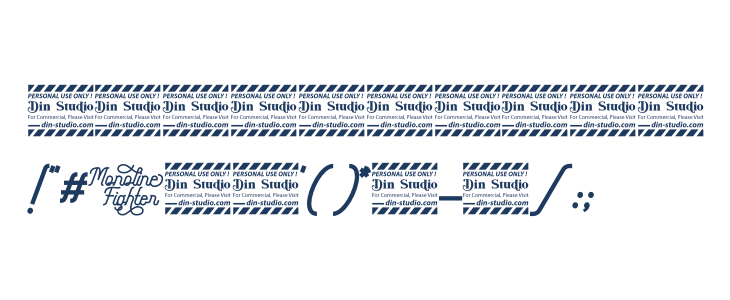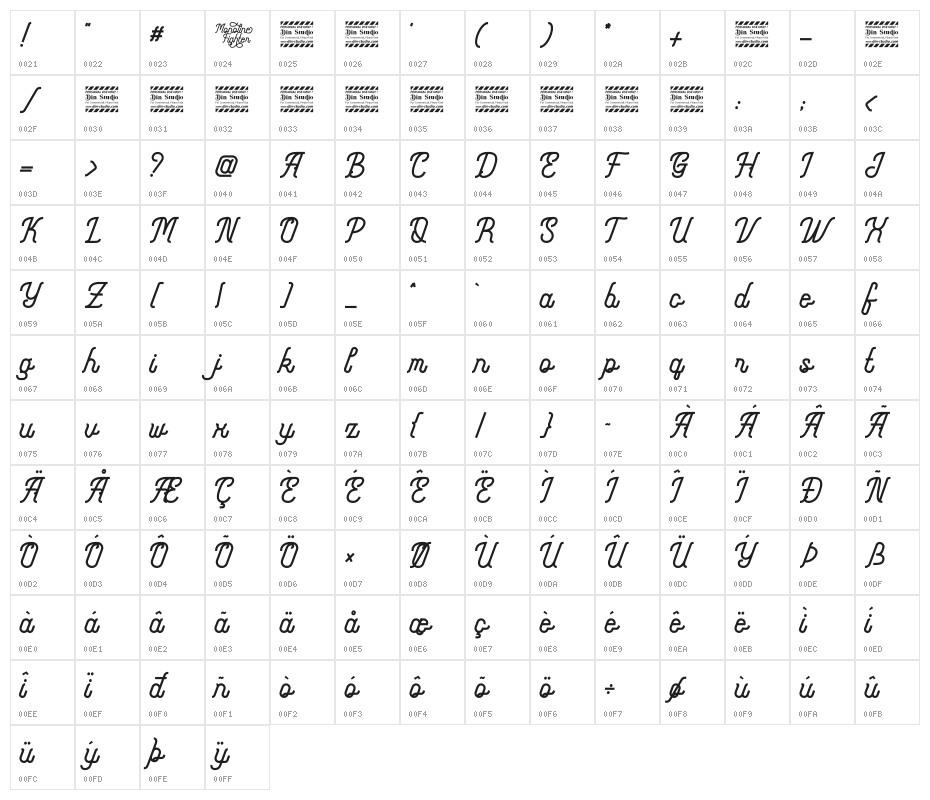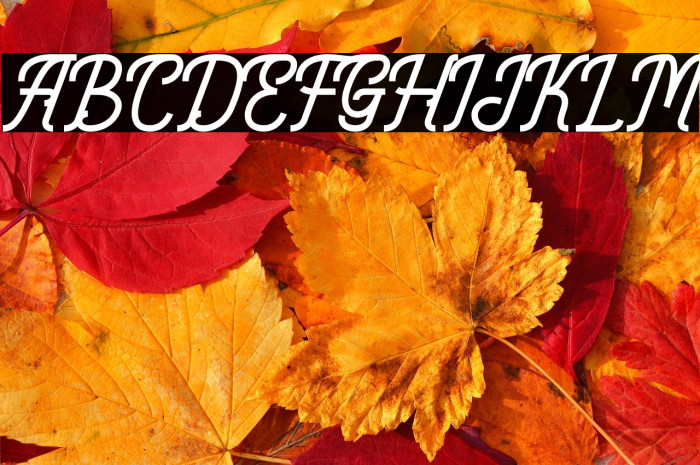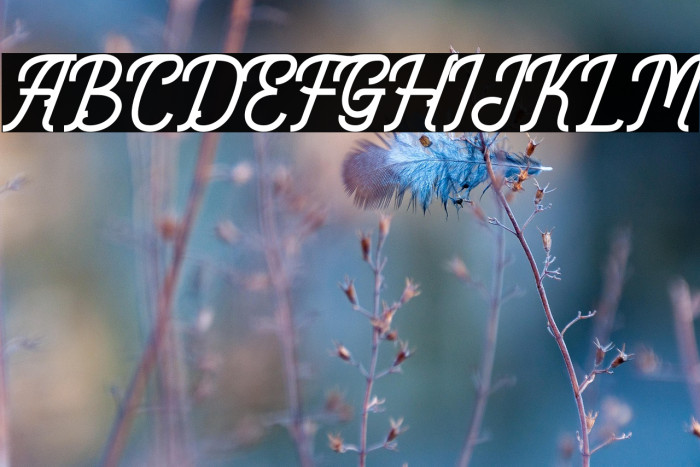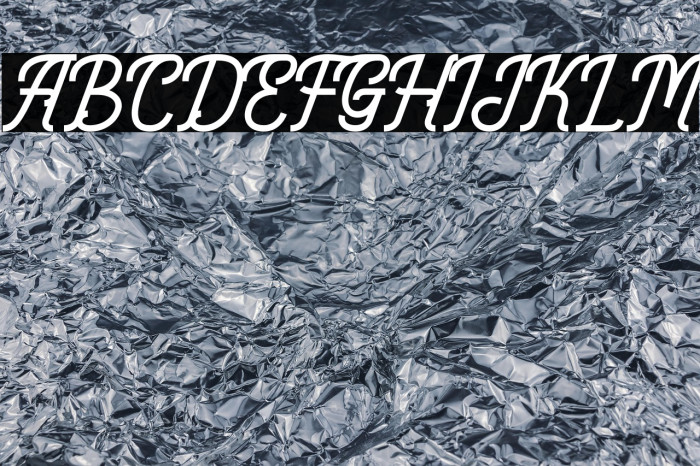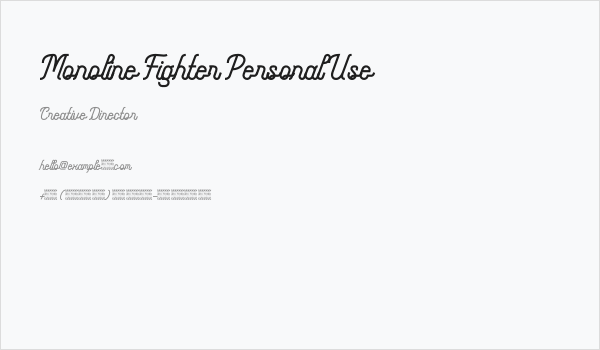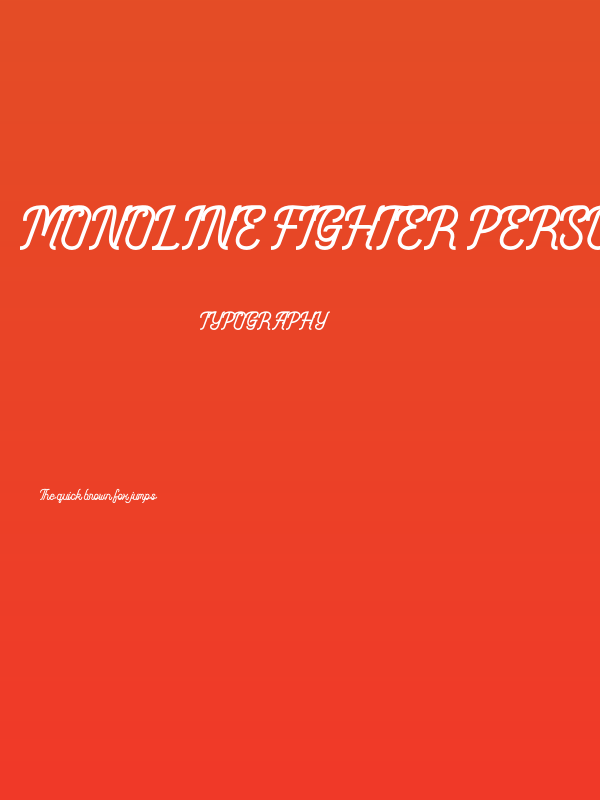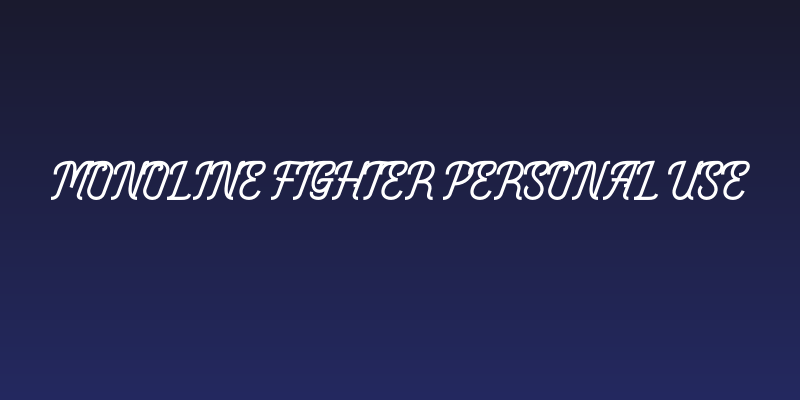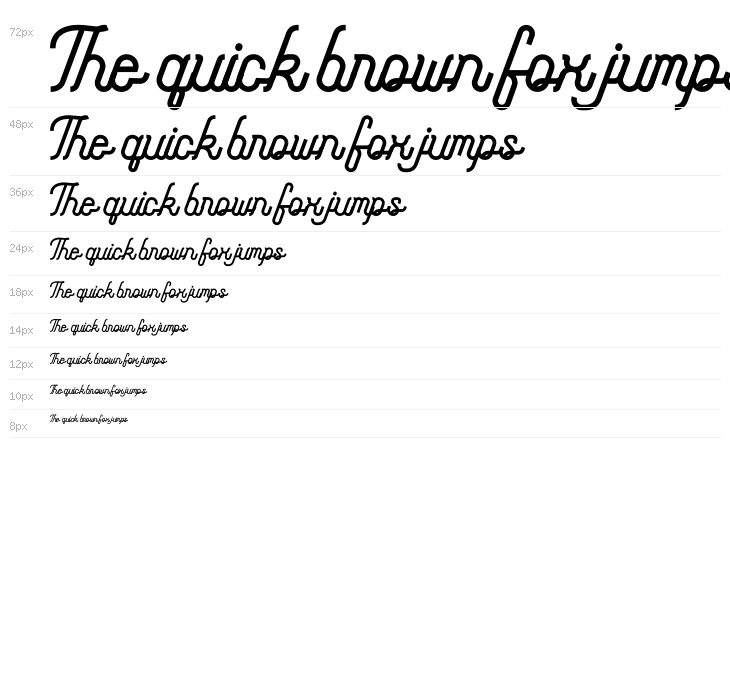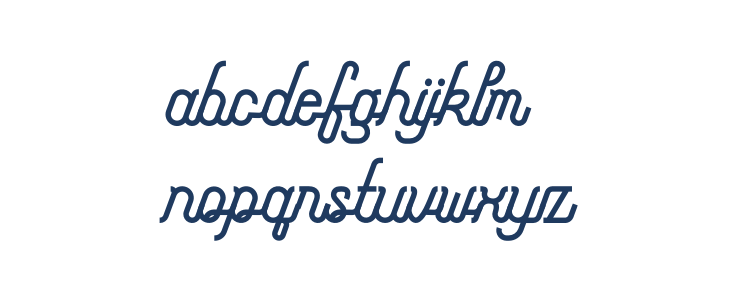
Monoline Fighter Personal Use Font
Monoline Fighter Personal Use Description
This font features a monoline script style with a consistent stroke width throughout each character, giving it a clean and cohesive appearance. The uppercase letters are bold and slightly slanted, adding a dynamic and energetic feel. The lowercase letters maintain the same slant and are designed with smooth, flowing connections, enhancing the script-like quality. The numerals and special characters are crafted to match the overall style, ensuring uniformity across all glyphs. This font's design is both modern and playful, making it suitable for a variety of creative applications.